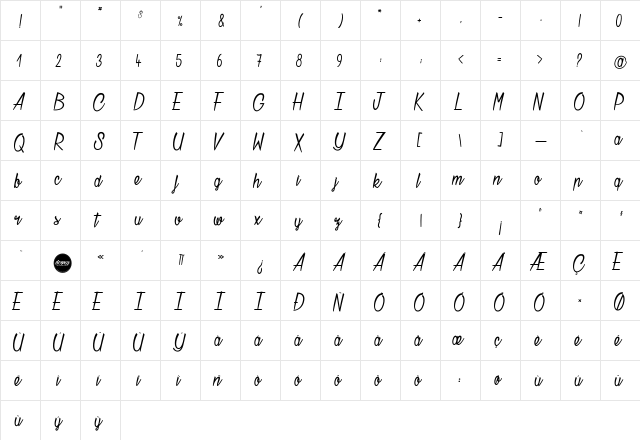
Chatelain des Radis Regular
Design Context for Chatelain des Radis Typeface
Chatelain des Radis is a composed and adaptable typeface that performs quietly and consistently across a wide range of design contexts.
Pro Tip: Use Chatelain des Radis in both headline and body roles to test its range before committing to a single application.